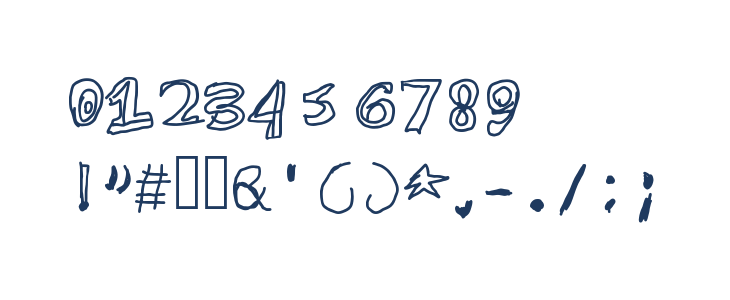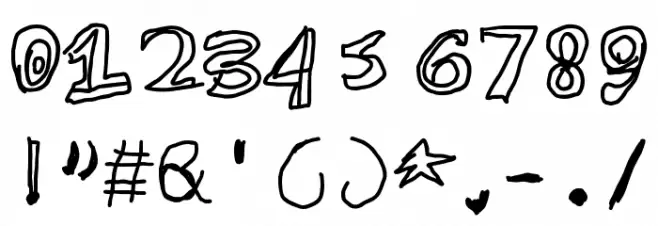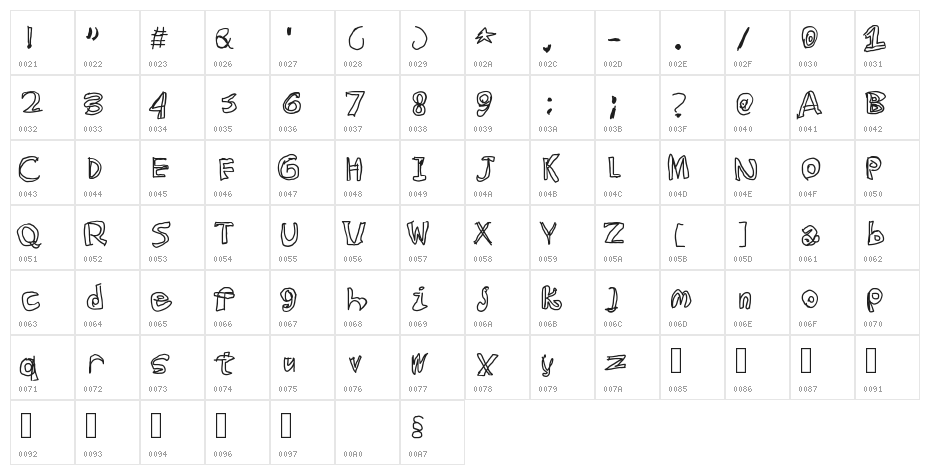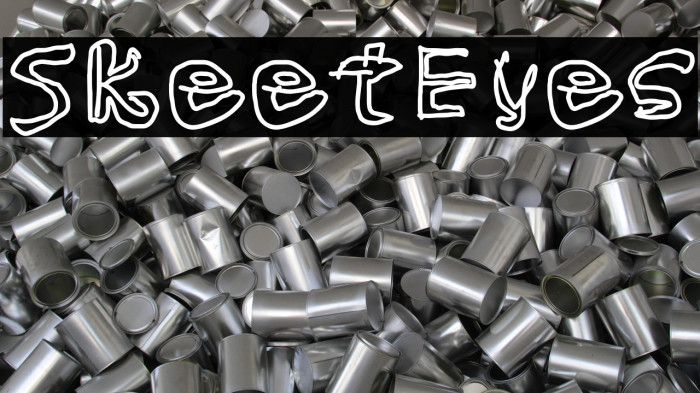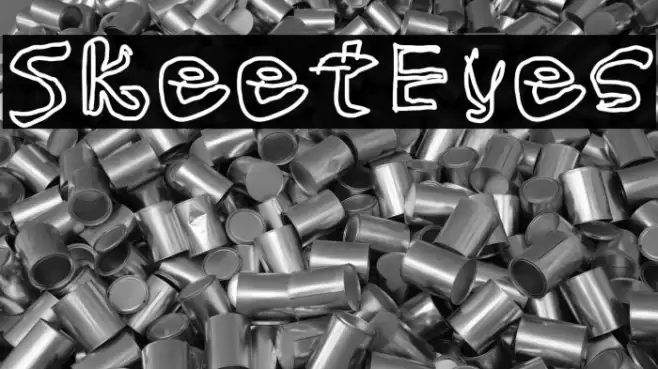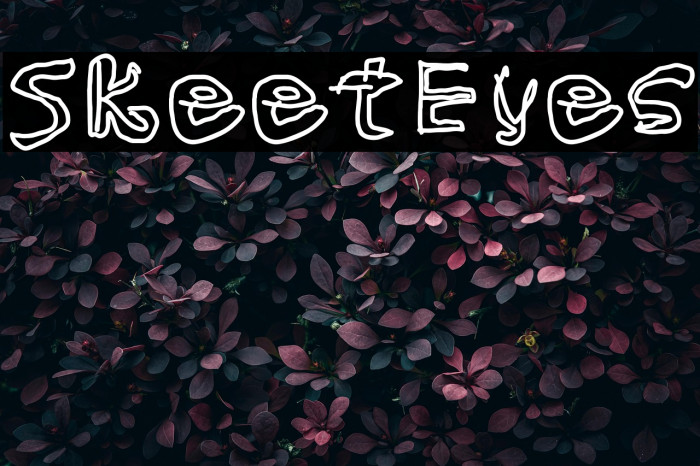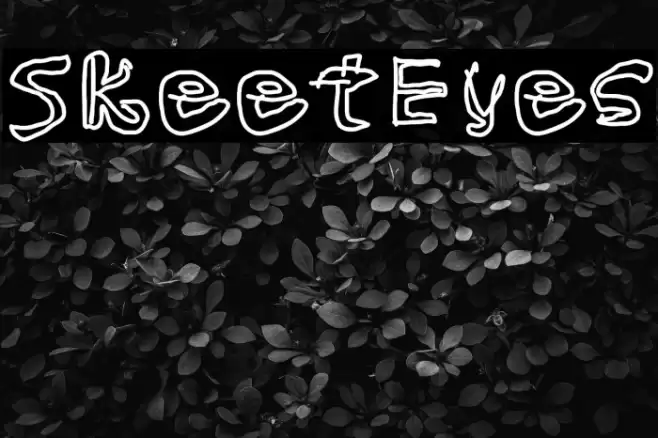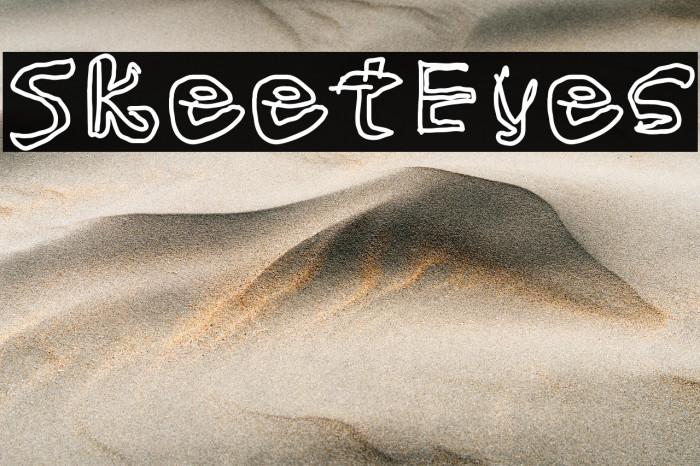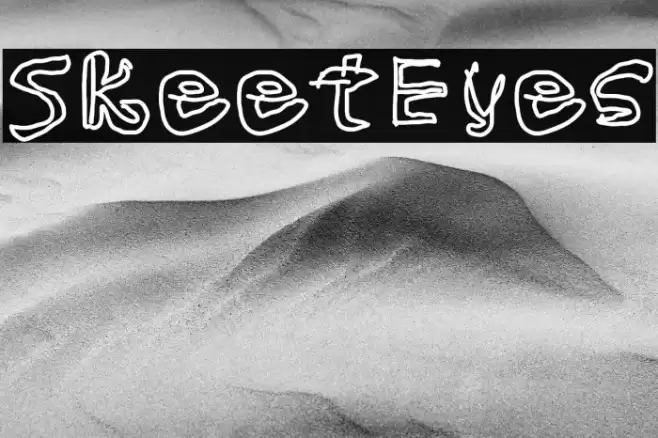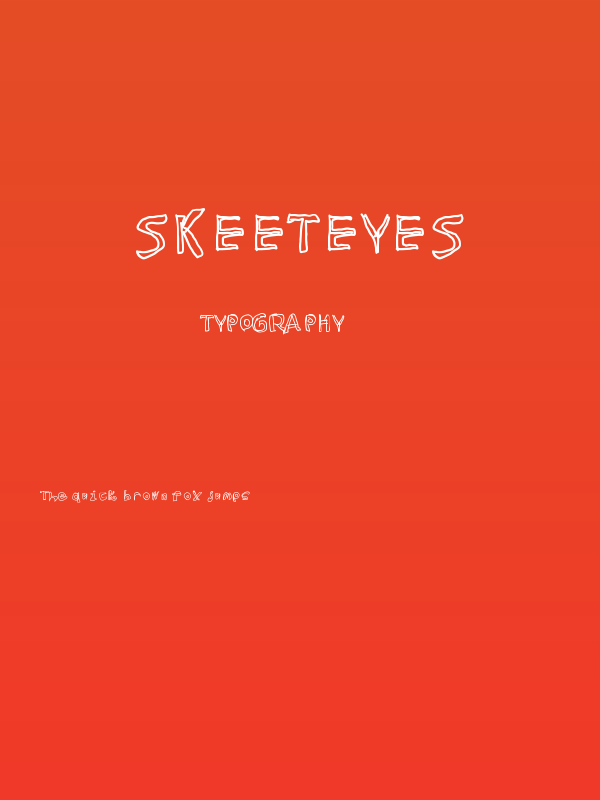
SkeetEyes Font
SkeetEyes Description
This font features a playful and quirky design with a hand-drawn aesthetic. The letters are uneven and irregular, giving it a casual and informal feel. The uppercase and lowercase letters are distinct, with exaggerated curves and angles that add to its whimsical charm. Numbers and special characters follow the same style, maintaining consistency throughout. The font's unique appearance makes it stand out, making it suitable for creative and artistic projects.
| Proposed Projects | Ideal for children's books, comic strips, playful branding, and creative posters. |